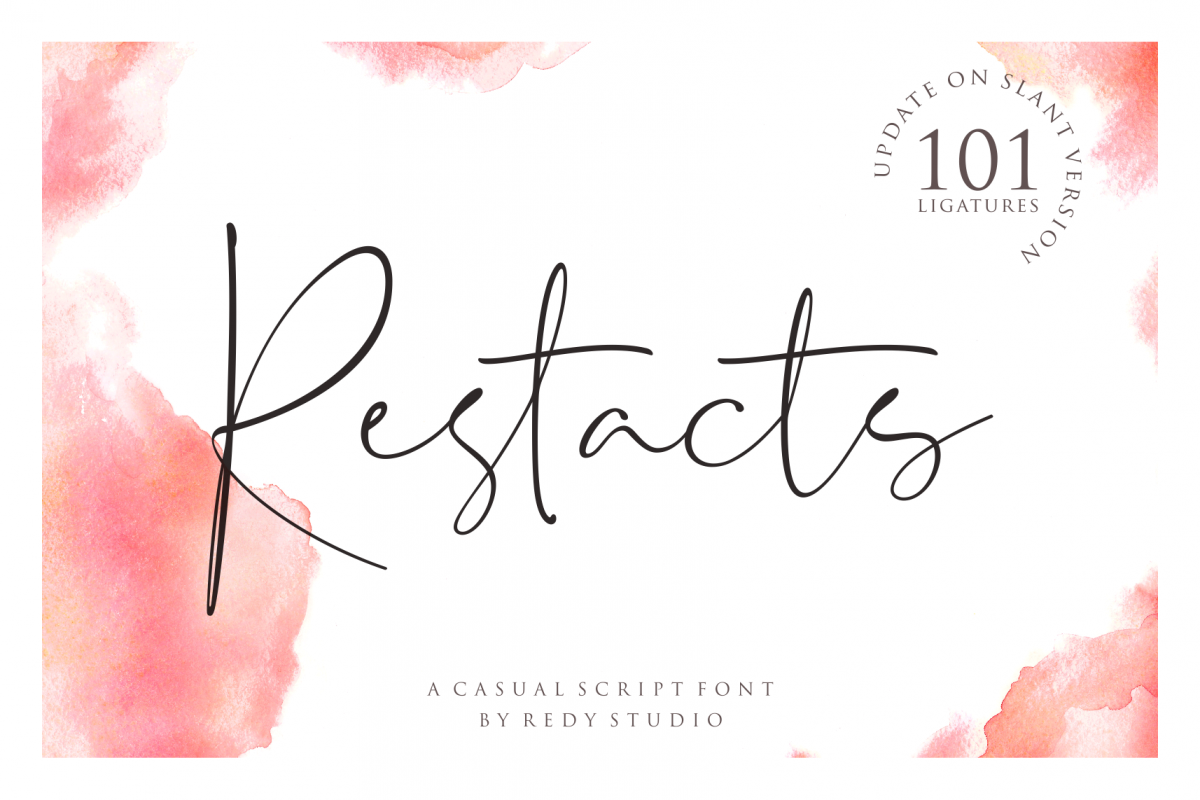
UPDATE SLANT VERSION | Restacts Script Font
Introduce Restacts Script, here we provide 2 variants, the first one is Restacts Script which is more casual and feminine, the second variant is more elegant and bolder. Both of them look smooth and you can see our preview for more details. Restacts Script provides beautiful letter essence for any design project including Branding, social media, logo, wedding invitation, photography overlays, etc.
To make the letters look as natural as possible, here with we attach 101 Ligature on our Ligature of Restacts Script preview :af aff al all ar at att az bb bf bl br bbr bt cc cr cf dd da dda df dl dr ddr dt ee ef eff el ell er et ett ez ff gf hh hf ht if iff il ill ir it itt iz jf kk kf ll lf lt mm ma mma mf nn nf oo of off ol ool oll ot oot ott oz pp pf qf rr rf ss sb ssb sf ssf sh ssh sk ssk sl ssl sr ssr st sst tt uf ul ull ur ut utt uz xx xf yf zz.